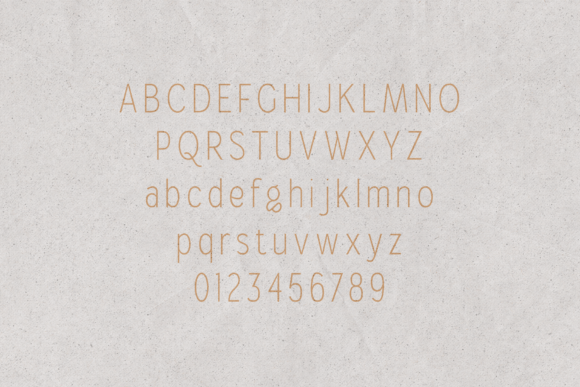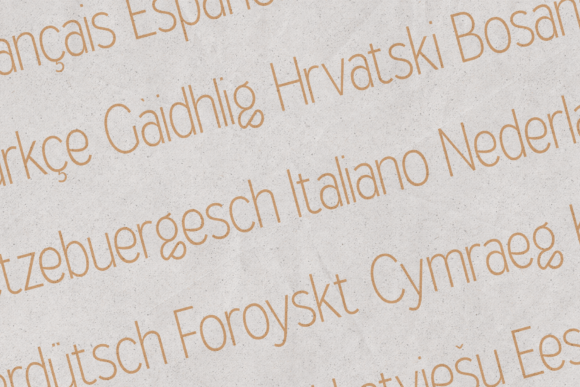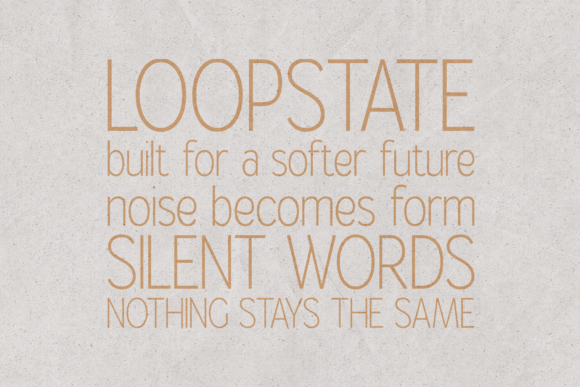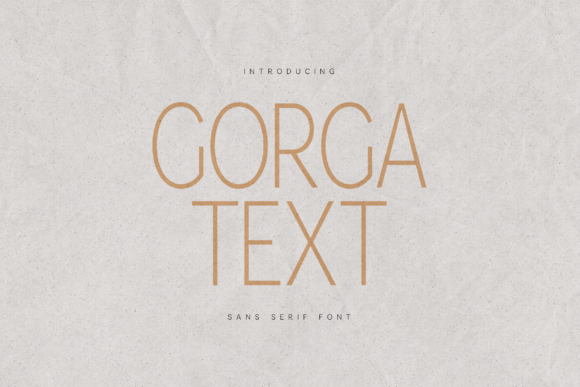
Introduction to Gorga Text Font
Gorga Sans was created for designers who value space, rhythm, and balance.
Its carefully proportioned letterforms, soft curves, and open counters create a calm visual flow — making it ideal for brands that communicate confidence through simplicity Every character has been adjusted with attention to spacing and harmony, ensuring consistency across headlines, logos, and body text.